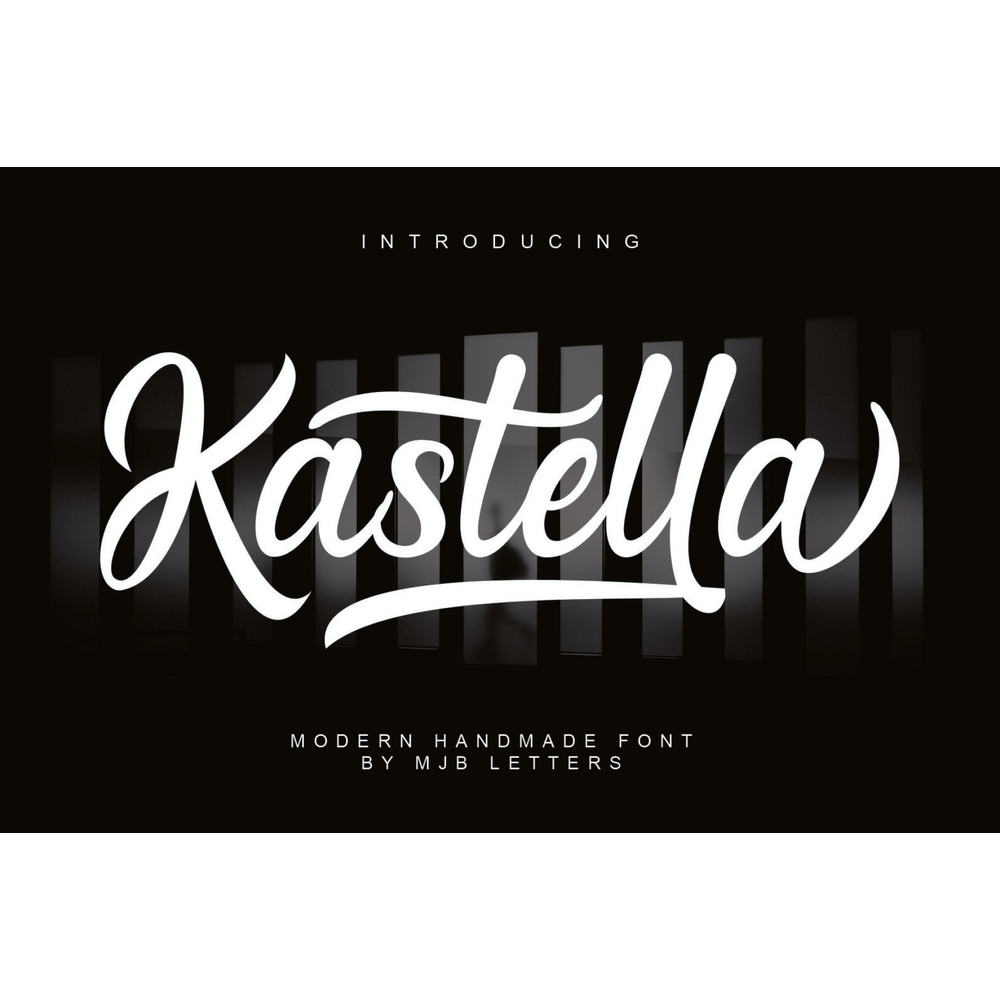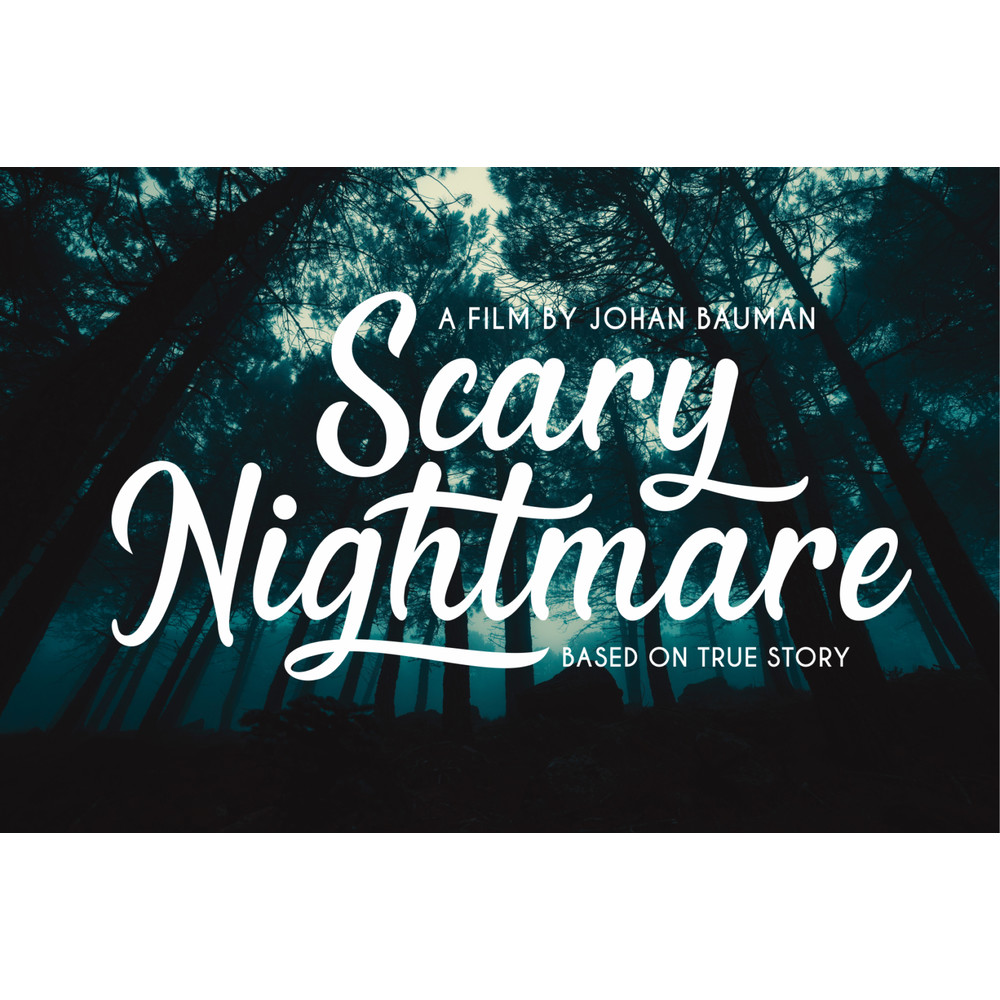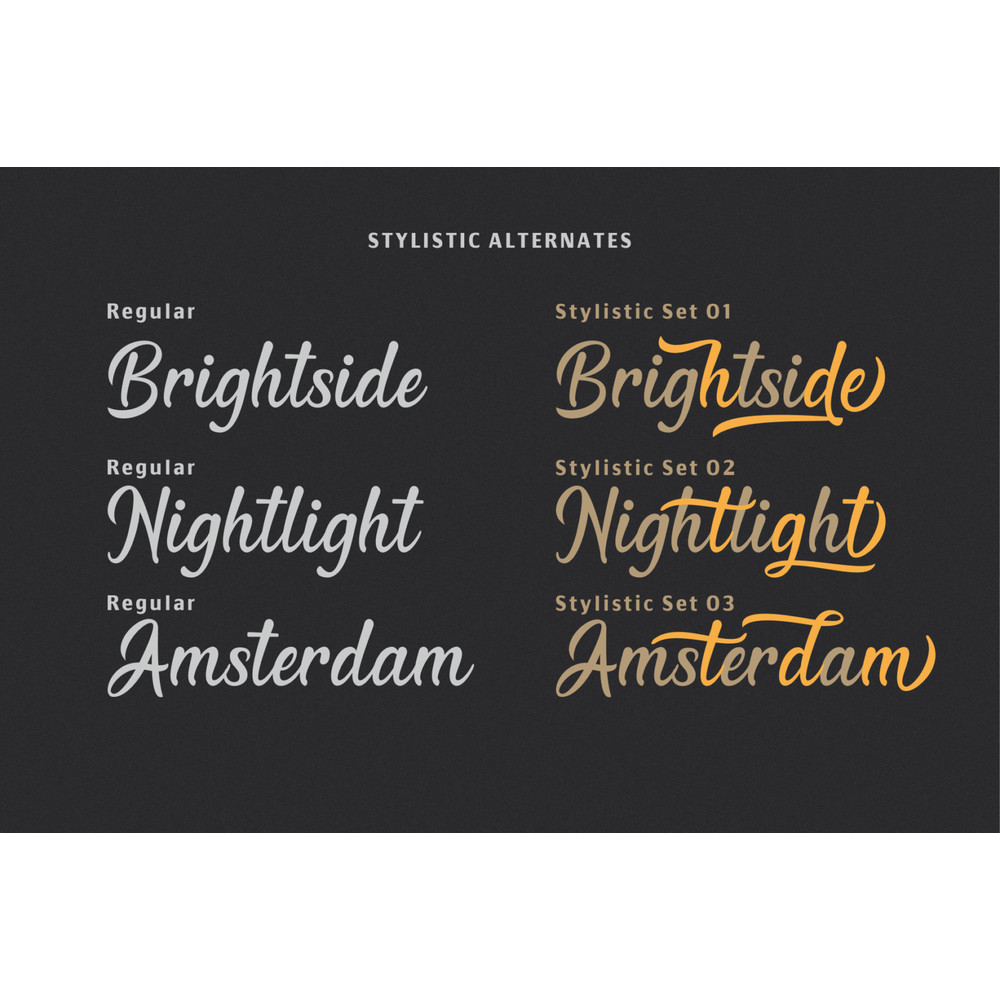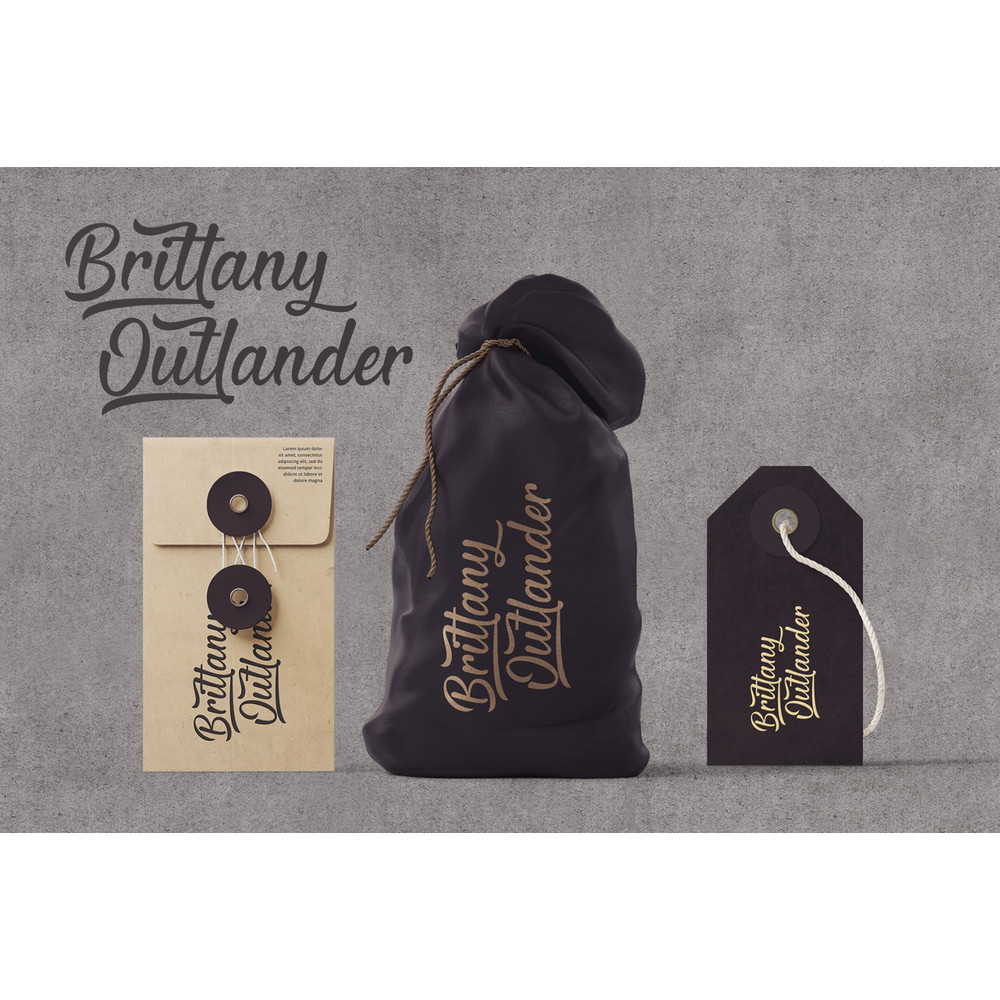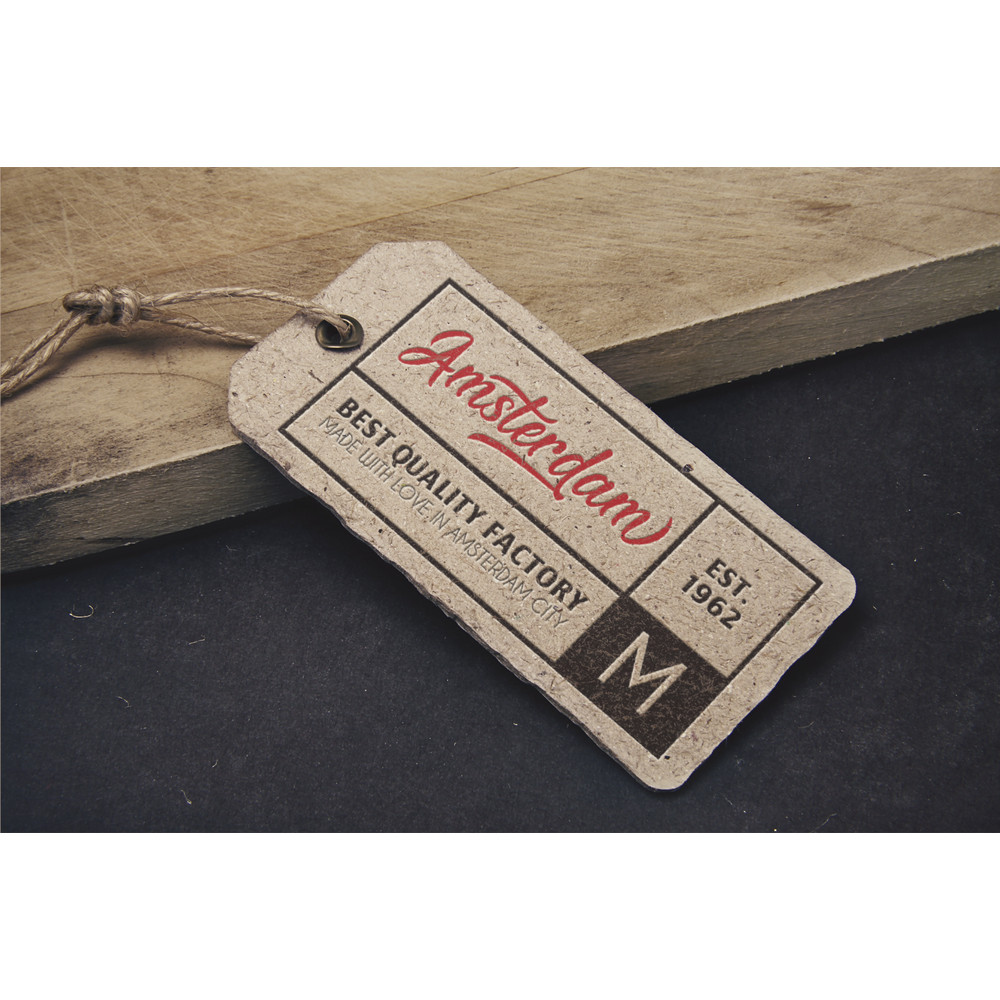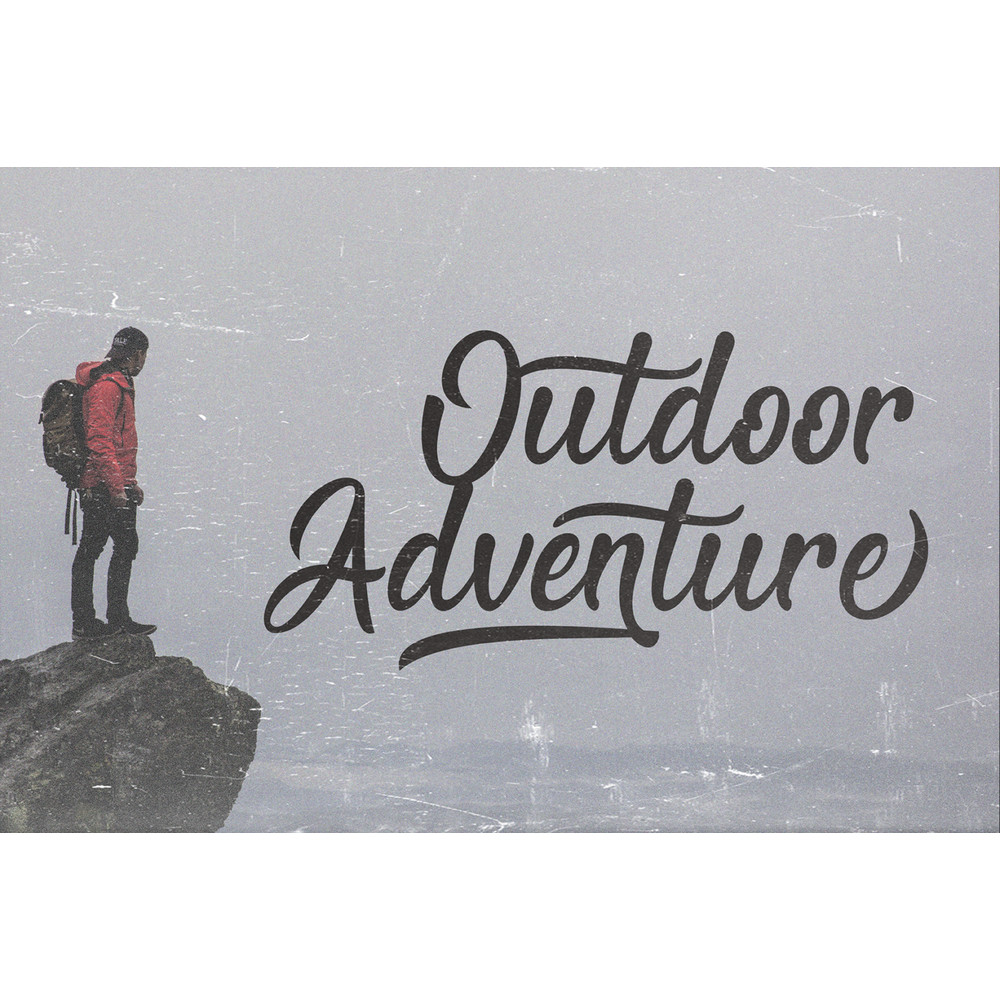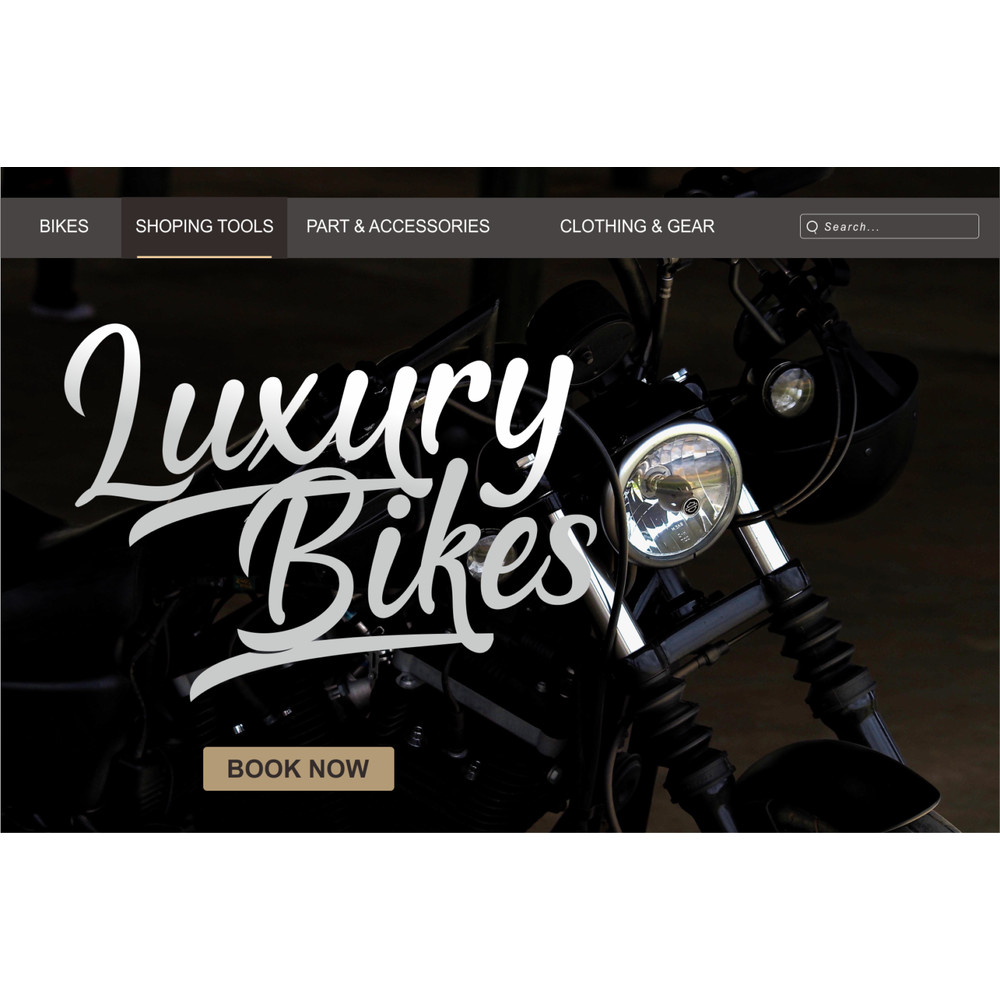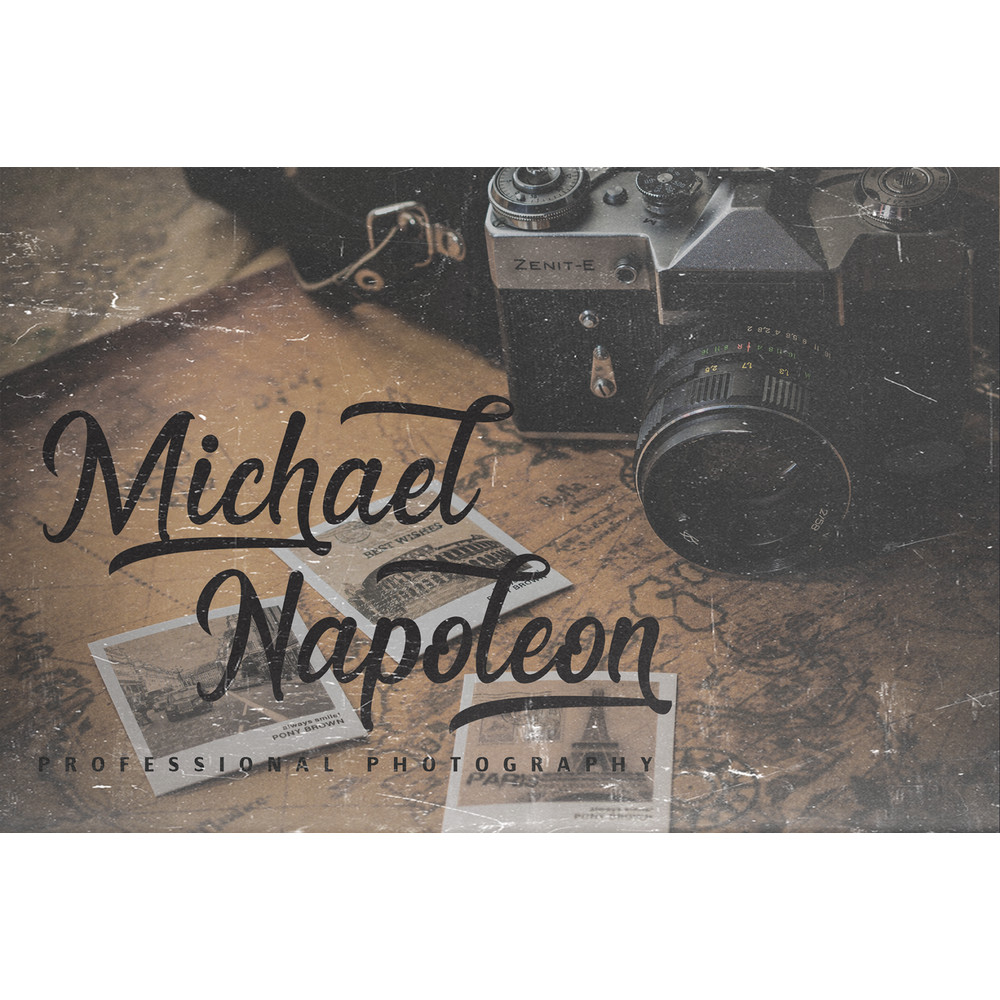
Kastella – Bold Script Font Trending Fonts - Digital Font
Introducing Kastella Bold Script Font made from the heart and very carefully, specifically designed to be able to meet various kinds of needs, especially for logos, badges, packaging, brands, posters, t-shirts and others. This font has many styles and ligatures that are very easy to use in various design software. File Included :